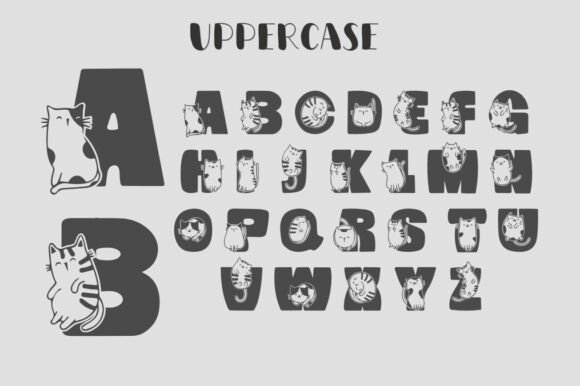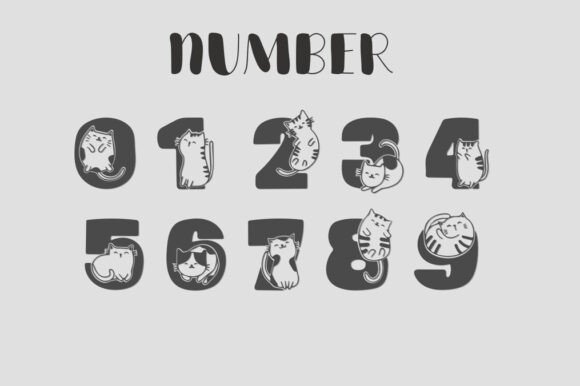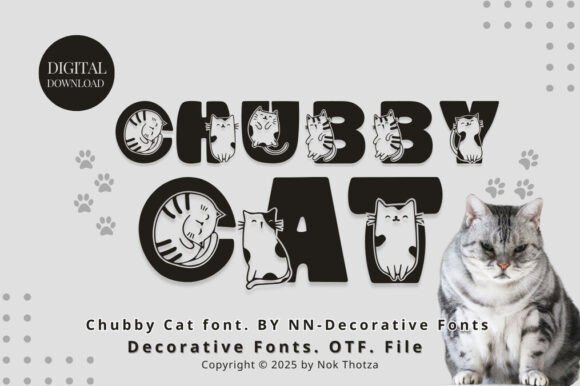
Introducing Chubby Cat Font: The Purrfect Addition to Your Design Projects
Are you tired of using the same old fonts for your design projects? Do you want to add a touch of whimsy and playfulness to your creations? Look no further than Chubby Cat Font, a delightful typeface that features adorable cat-themed designs incorporated into each letter. In this article, we’ll explore the features and benefits of Chubby Cat Font, and how it can elevate your designs to the next level.
What is Chubby Cat Font?
Chubby Cat Font is a unique and decorative typeface that combines the world of typography with the cuteness of cats. Each letter in the font features an endearing cat design, making it perfect for projects that require a playful and eye-catching touch. Whether you’re working on a craft project, creating invitations, or designing children’s materials, Chubby Cat Font is sure to bring a smile to your face and your audience’s.
Key Features of Chubby Cat Font
- Playful and Decorative: Chubby Cat Font is designed to add a touch of fun and playfulness to your designs. Its unique cat-themed designs make it stand out from traditional fonts.
- Adorable Cat Designs: Each letter in the font features an adorable cat design, making it perfect for cat lovers and those who want to add a touch of cuteness to their projects.
Uses for Chubby Cat Font
Chubby Cat Font is versatile and can be used in a variety of design projects, including:
- Crafting: Add a touch of whimsy to your craft projects, such as scrapbooking, card-making, and DIY tutorials.
- Invitations: Create adorable invitations for parties, events, and special occasions.
- Children’s Projects: Use Chubby Cat Font to create engaging and fun materials for kids, such as worksheets, activity sheets, and storybooks.
- Digital and Print Projects: The font is suitable for both digital and print projects, making it perfect for designers, bloggers, and small business owners.
Benefits of Using Chubby Cat Font
Using Chubby Cat Font in your design projects offers several benefits, including:
- Unique and Eye-Catching: The font’s playful and decorative design makes it stand out from traditional fonts, adding a touch of personality to your projects.
- Time-Saving: The font’s pre-designed cat-themed letters save you time and effort, allowing you to focus on other aspects of your project.
Chubby Cat Font is a delightful and playful typeface that adds a touch of whimsy and cuteness to any design project. With its unique cat-themed designs, ease of use, and high-quality results, it’s perfect for designers, crafters, and anyone looking to add a touch of personality to their creations. Whether you’re working on a craft project, creating invitations, or designing children’s materials, Chubby Cat Font is sure to bring a smile to your face and your audience’s.